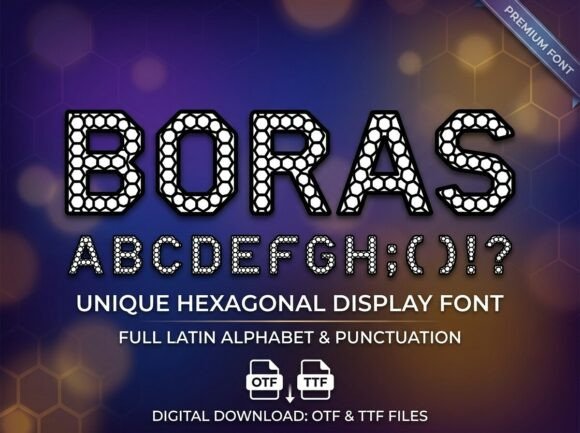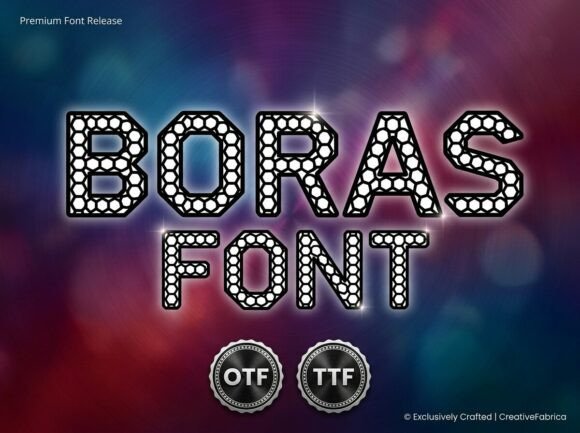
Introducing Boras Font: The Ultimate Decorative Display Font for Creative Minds
Are you tired of using the same old fonts for your designs? Do you want to make a statement and stand out from the crowd? Look no further than Boras Font, a stunning decorative display font that’s designed to be the center of attention. With its unique artistic elements and strong visual personality, this font is perfect for creators who want to break away from the ordinary and add a touch of elegance to their work.
What Makes Boras Font So Special?
Boras Font is a versatile font that’s perfect for a variety of design projects, from bold headlines and artistic logos to creative packaging. Its unique artistic elements and strong visual personality make it an excellent choice for designers who want to add a touch of sophistication to their work. Whether you’re working on a branding project, a website design, or a marketing campaign, Boras Font is sure to make a lasting impression.
Key Features of Boras Font
- Unique Artistic Elements: Boras Font features unique artistic elements that set it apart from other fonts. Its intricate details and elegant lines make it a true work of art.
- Strong Visual Personality: This font has a strong visual personality that’s sure to grab attention. Its bold and eye-catching design makes it perfect for headlines, logos, and other design elements.
- Versatile: Boras Font is versatile enough for a variety of design projects, from bold headlines and artistic logos to creative packaging.
- Professional and Polished Finish: Despite its decorative nature, Boras Font maintains a professional and polished finish that’s perfect for high-end designs.
Why Choose Boras Font?
There are many reasons why Boras Font stands out from other fonts on the market. Here are just a few:
- Unique Design: Boras Font has a unique design that’s sure to grab attention.
- Versatility: Boras Font is versatile enough for a variety of design projects.
Tips and Tricks for Getting the Most Out of Boras Font
- Use it for Headlines: Boras Font is perfect for headlines and titles. Use it to grab attention and add a touch of elegance to your designs.
- Experiment with Colors: Boras Font looks great in a variety of colors. Experiment with different colors to find the one that works best for your design.
- Pair it with Other Fonts: Boras Font pairs well with other fonts. Experiment with different font combinations to find the one that works best for your design.
Boras Font is a stunning decorative display font that’s perfect for creators who want to break away from the ordinary. With its unique artistic elements and strong visual personality, this font is sure to make a lasting impression. Whether you’re working on a branding project, a website design, or a marketing campaign, Boras Font is the perfect choice. So why wait? Download Boras Font today and take your designs to the next level!